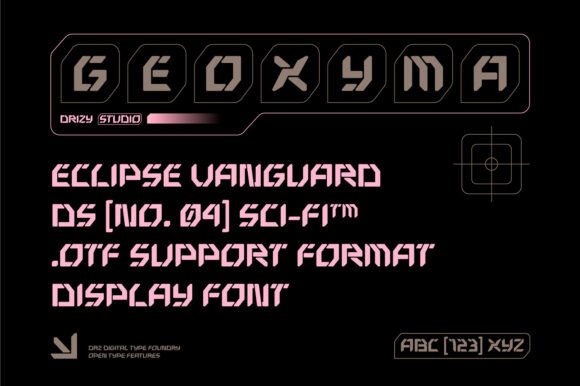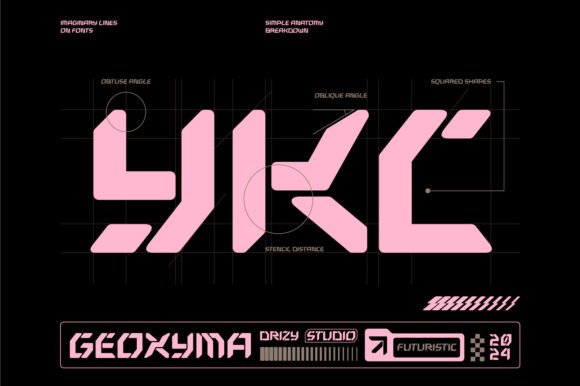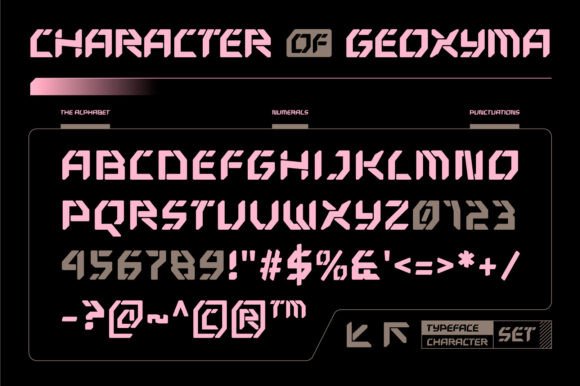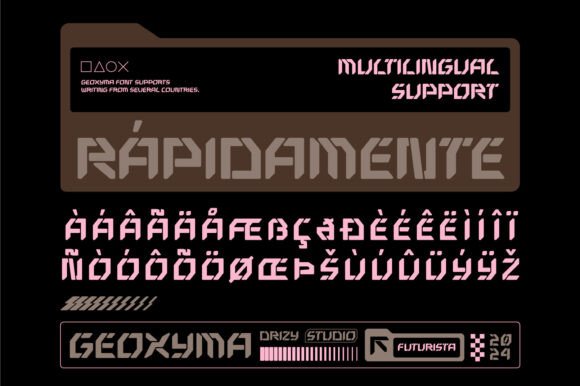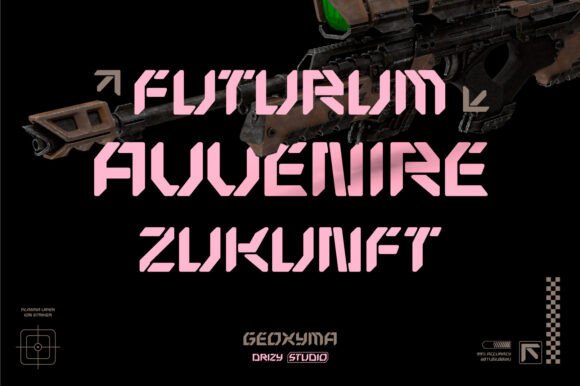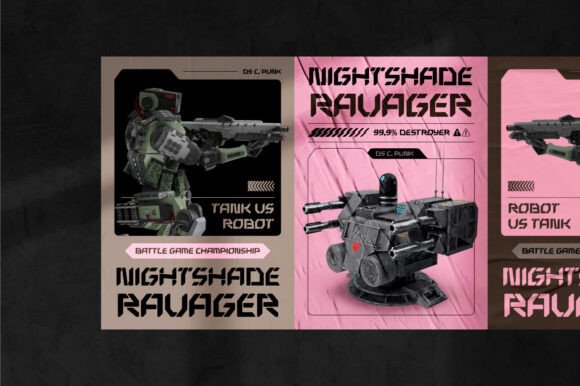
Introducing Geoxyma Font: The Ultimate Choice for Esports Design Projects
In the world of esports, visual identity plays a crucial role in establishing a team’s presence and dominance. When it comes to creating a lasting impression, the right font can make all the difference. This is where Geoxyma Font comes into play, offering a perfect blend of style, modernity, and edginess that resonates with the spirit of competitive gaming.
What Makes Geoxyma Stand Out?
Geoxyma is not just another font; it’s a statement of dominance in the gaming arena. Designed with the esports community in mind, Geoxyma boasts bold, modern stencil cuts and sleek futuristic vibes that capture the energy and intensity of competitive gaming. Its unique design combines sharp edges with dynamic curves, creating a powerful visual impact that instantly grabs attention.
The Perfect Choice for Esports Design Projects
Whether you’re working on a team emblem, streaming layout, or merchandise, Geoxyma is the perfect choice for any esports design project. Its versatility and flexibility make it an ideal font for various applications, including:
• Logos and team branding: Create a lasting impression with a bold and modern logo that reflects your team’s identity.
• Merchandise: Elevate your team’s merchandise with a font that exudes professionalism and edginess.
• Digital overlays: Enhance your streaming layout with a font that complements your brand’s visual identity.
Key Features of Geoxyma Font
So, what makes Geoxyma an excellent choice for esports design projects? Here are some of its key features:
• Bold and modern design: Geoxyma’s stencil cuts and futuristic vibes give it a unique and modern look that stands out in the esports scene.
• Sharp edges and dynamic curves: The font’s sharp edges and dynamic curves create a powerful visual impact that grabs attention.
• Versatility: Geoxyma is suitable for various applications, from logos and merchandise to digital overlays.
• Professional yet edgy: The font strikes the perfect balance between professionalism and edginess, making it perfect for esports design projects.
Why Choose Geoxyma for Your Esports Design Project?
When it comes to creating a visual identity for your esports team, you want a font that not only looks great but also resonates with your brand’s values and spirit. Geoxyma offers a unique combination of style, modernity, and edginess that makes it an excellent choice for esports design projects. Here are some reasons why you should choose Geoxyma:
• Establish a strong visual identity: Geoxyma helps you create a lasting impression with its bold and modern design.
• Stand out in the esports scene: The font’s unique design and edgy vibe help you stand out in a crowded esports scene.
• Enhance your brand’s credibility: Geoxyma’s professional yet edgy aesthetic enhances your brand’s credibility and reputation.
Font Name Geoxyma Font
Author Drizy Studio
In conclusion, Geoxyma Font is the perfect choice for any esports design project. Its bold, modern stencil cuts and sleek futuristic vibes capture the energy and intensity of competitive gaming, making it an excellent choice for logos, team branding, merchandise, and digital overlays. With its versatility, flexibility, and unique design, Geoxyma delivers a professional yet edgy aesthetic that resonates with the spirit of esports. Whether you’re a designer or a crafter, Geoxyma is a statement of dominance in the gaming arena that helps you establish a strong visual identity and stand out in the esports scene.
Get Ready to Elevate Your Esports Design Project with Geoxyma